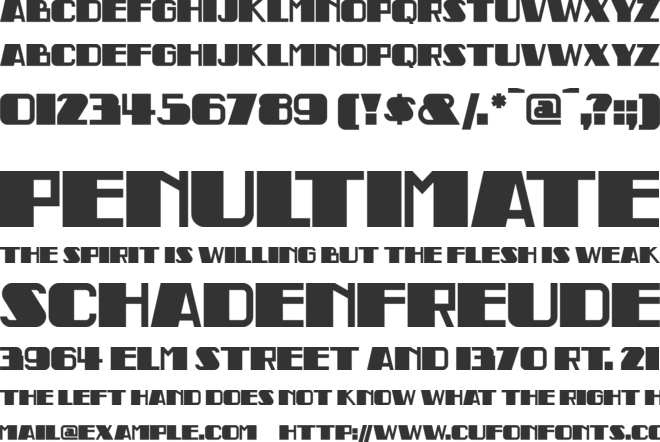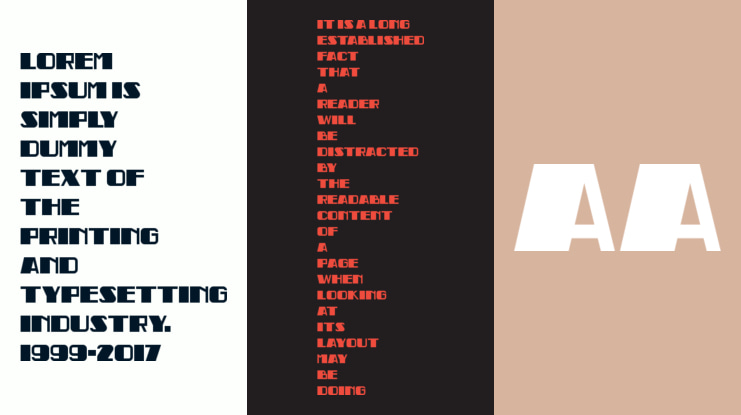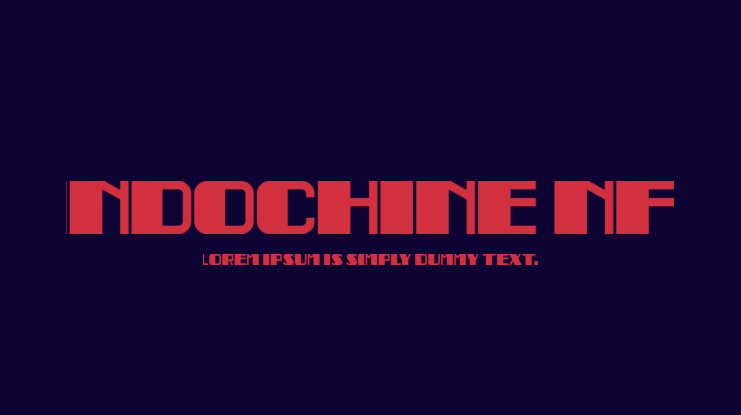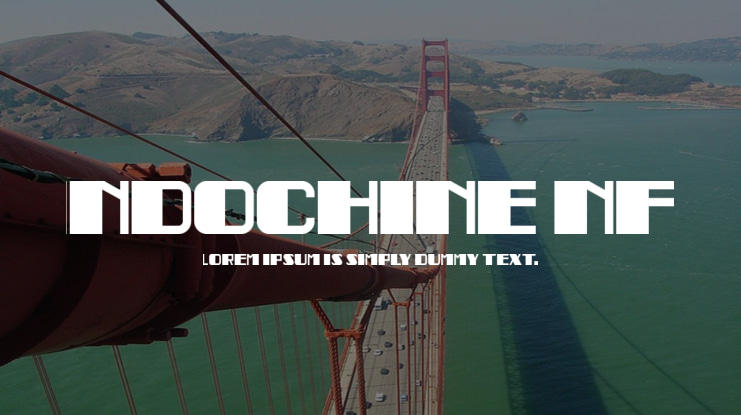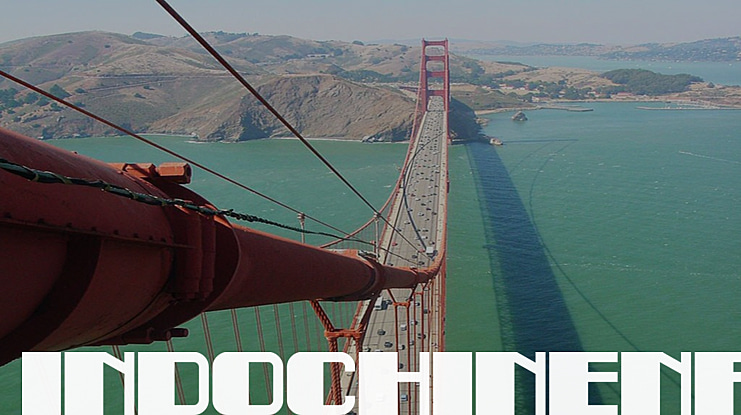
Indochine NF Font
This attention-commanding font is based on lettering from a French Indochina travel poster, designed by Joseph-Henri Ponchin in 1931. The name of the font is the French spelling, and also the name of a terrific movie, starring Catherine Deneuve, about how French Indochina turned into Vietnam.